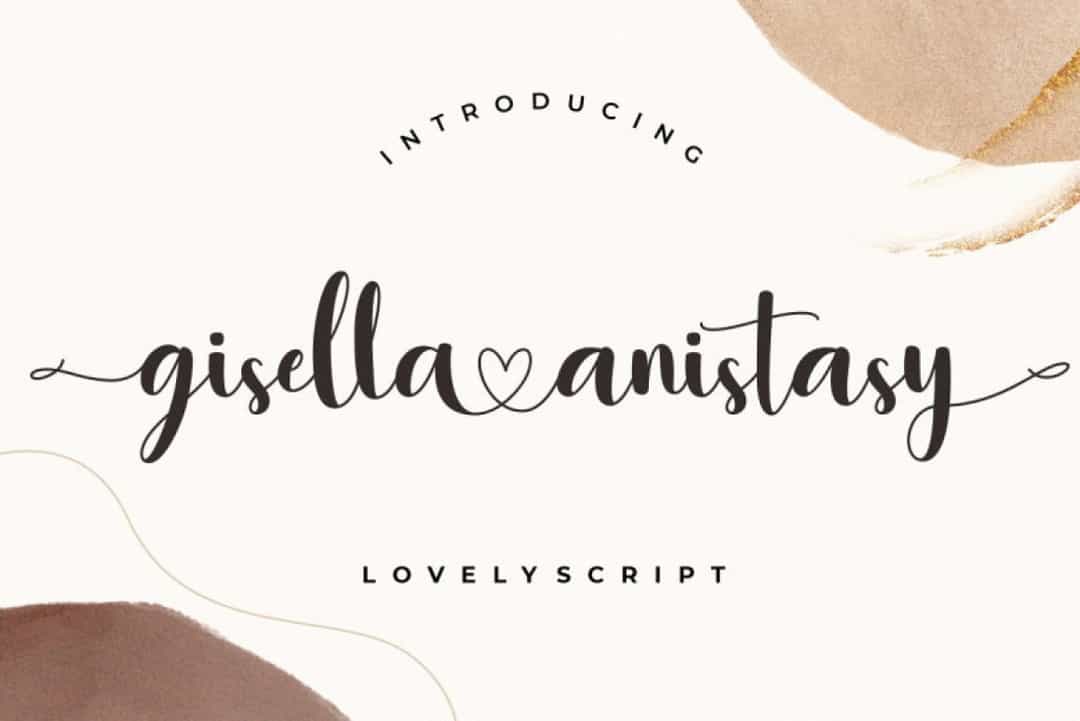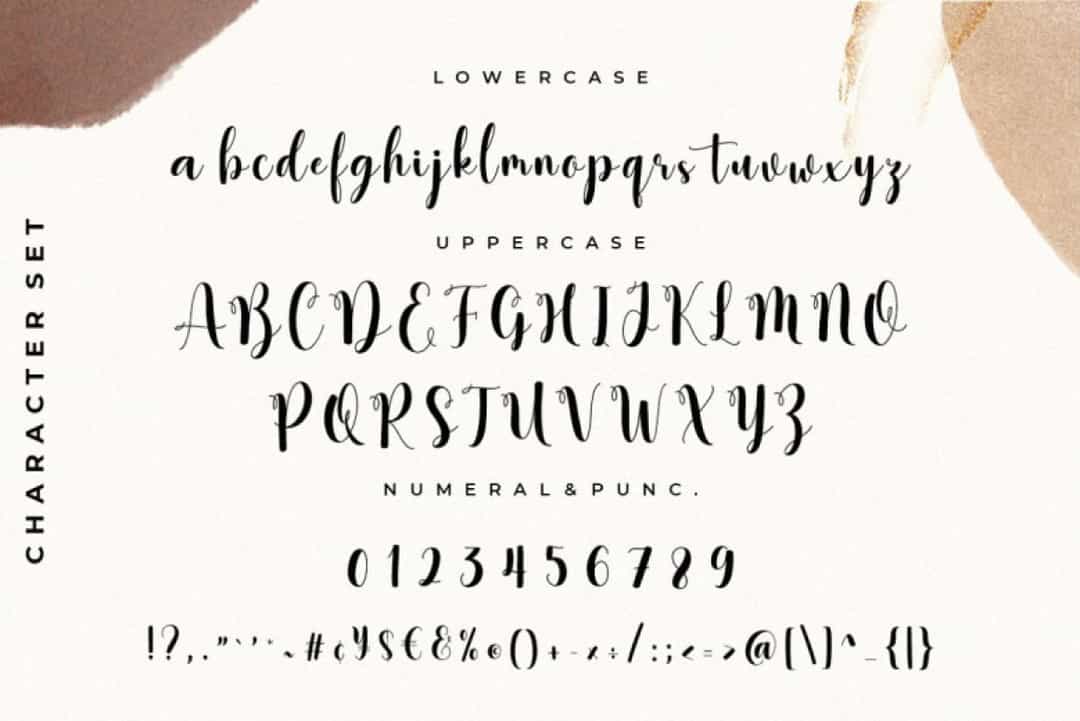
Gisella Anistasy is a beautiful calligraphy font with contemporary charm. Ideal for branding, logo wedding designs, social media posts, ads packaging for products, product labels photo watermark invitations stationery invitations or any projects which require handwritten flair this font makes an eye-catching statement!